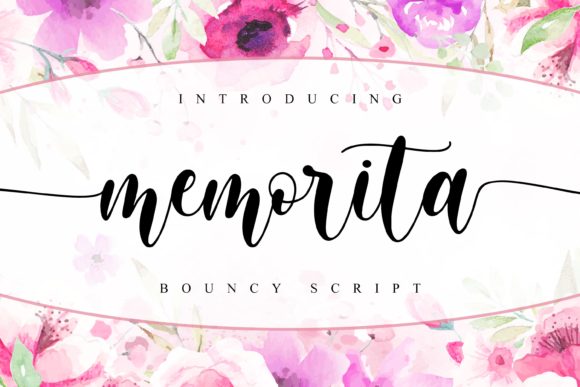
Introducing Memorita, a calligraphy font that captures the essence of romance and sweetness. Its characters dance along the baseline, creating a captivating visual flow that adds a touch of elegance and charm to your designs. Immerse yourself in the world of Memorita, where every letter holds a story waiting to be told.
With its graceful lines and delicate curves, Memorita is the perfect choice for wedding invitations, thank you cards, greeting cards, logos, and any project that requires a personalized and heartfelt touch. Unleash your creativity and let Memorita elevate your designs to new heights.
Step into a world where words come alive with Memorita. Its versatility knows no bounds, making it a favorite among designers looking to add a touch of romance to their work. From wedding invitations that capture the essence of love to greeting cards that warm the heart, Memorita is the font that transforms ordinary words into captivating expressions.
Memorita is more than just a font; it's a gateway to a world of emotions, a journey into the realm of heartfelt expression. Let your designs speak louder than words with Memorita, the font that ignites the senses and leaves a lasting impression.